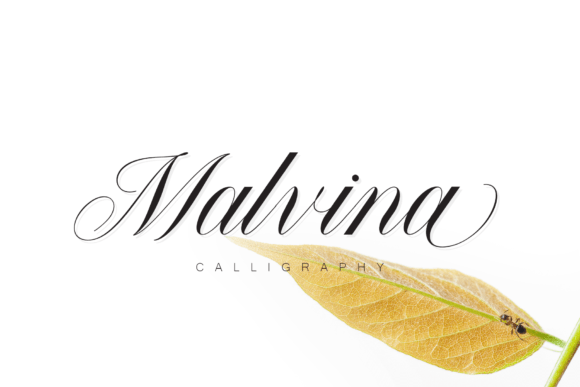
Unleash the Enchantment of Your Wedding Invitations with Malvina Font - A Timeless Masterpiece for Your Special Day
In the realm of fonts, Malvina reigns supreme, captivating hearts with its innate charm and timeless elegance. This exquisite script font, lovingly crafted by the renowned Groens Studio, is a symphony of grace and beauty, specially designed to transform your wedding invitations into breathtaking works of art.
Adorned with delicate strokes and playful flourishes, Malvina dances across the page, evoking a sense of romance and enchantment. Its soft curves and graceful lines create a visual harmony that captures the essence of love and celebration, making it the perfect choice for couples seeking a font that reflects the joy and significance of their special day.
With Malvina as your font of choice, your wedding invitations will transcend mere pieces of paper and become cherished keepsakes, treasured for years to come. Imagine your guests' delight as they receive these exquisite invitations, their hearts stirring with anticipation for the magical event that awaits them.
Beyond its aesthetic allure, Malvina is a font of unparalleled versatility, effortlessly adapting to a myriad of wedding themes and styles. Whether you envision a classic and elegant affair, a whimsical garden soiree, or a modern and minimalist celebration, Malvina seamlessly blends with your chosen aesthetic, adding a touch of sophistication and personalization that elevates the entire experience.
With Malvina at your fingertips, you unlock a world of creative possibilities. Create breathtaking save-the-dates that set the tone for your upcoming nuptials, design enchanting table numbers that guide your guests through the evening, or craft heartfelt thank-you notes that express your gratitude to those who shared in your joy.
Malvina is not just a font; it's an experience, an expression of your love and commitment, a tangible piece of art that will forever hold a special place in your hearts. Embrace the magic of Malvina and let its enchanting beauty weave its spell on your wedding day, creating memories that will last a lifetime.